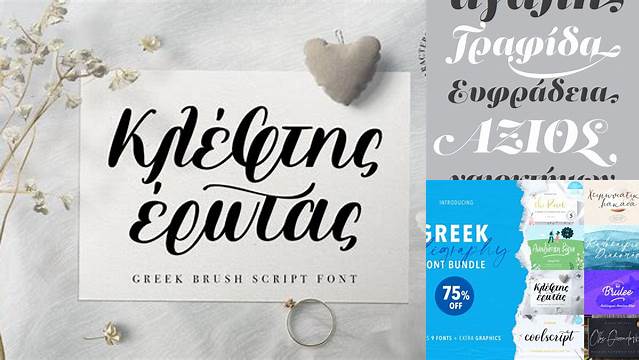
Free Greek Calligraphy Fonts To Elevate Your Designs
Hey design enthusiasts! Ever wanted to add that touch of ancient charm or modern flair to your projects with some beautiful Greek calligraphy? Well, you're in luck! Finding stunning and free Greek calligraphy fonts can sometimes feel like a quest for hidden treasure, but don't you worry, guys. We're about to dive deep into a world where creativity meets culture, and where you can snag some seriously awesome fonts without spending a dime. Whether you're working on a personal project, a client's branding, or just experimenting with typography, having a solid collection of free Greek fonts is a game-changer. We'll explore different styles, where to find them, and how to make them pop in your designs. So, buckle up, because this is your ultimate guide to unlocking the beauty of Greek typography for free!
Discovering the Allure of Greek Calligraphy Fonts
The allure of Greek calligraphy fonts is undeniable. They carry with them the weight of history, the elegance of ancient scripts, and the vibrant spirit of modern Greek culture. Think of the inscriptions on ancient pottery, the intricate details on Byzantine manuscripts, or even the bold lettering on contemporary Greek signage â each tells a story. Using Greek calligraphy fonts in your design work allows you to tap into this rich heritage, adding a layer of sophistication and authenticity that's hard to replicate. These fonts aren't just about letters; they're about conveying a sense of tradition, artistry, and sometimes, a playful nod to Hellenic aesthetics. When you're looking for that perfect font, you want something that not only looks good but also feels right for the message you're trying to send. The right Greek calligraphy font can transform a simple graphic into a captivating visual narrative, drawing viewers in with its unique character and timeless appeal. Itâs about more than just communication; it's about creating an emotional connection through the visual form of language. The fluidity of script, the structure of ancient alphabets, and the artistic flourishes all contribute to the distinctive charm of these typographic treasures. We're talking about fonts that can evoke feelings of the classical world, the warmth of Mediterranean islands, or the dynamism of modern Greek cities. So, when we talk about discovering their allure, it's about recognizing the profound impact they can have on your creative output and the stories your designs will tell.